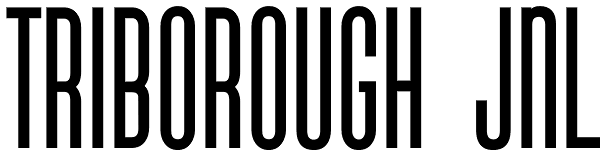
Triborough JNL
Triborough JNL is the heavier-weight version of Wingate JNL, a narrow, all-caps font from Jeff Levine. Evoking the feel of 1930s and 1940s store and architectural signs, use Triborough JNL along with its counterpart for a nice dual-weight...